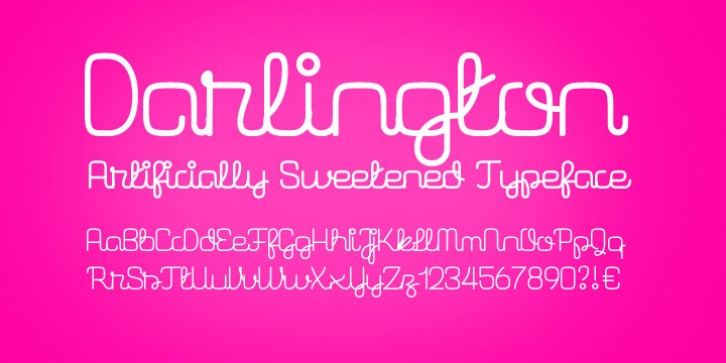
Darlington downloadDesigner: Emil Karl Bertell
Publisher: Fenotype
Darlington is an extra sweet monoline script font. Combine all three weights for maximum cute results.